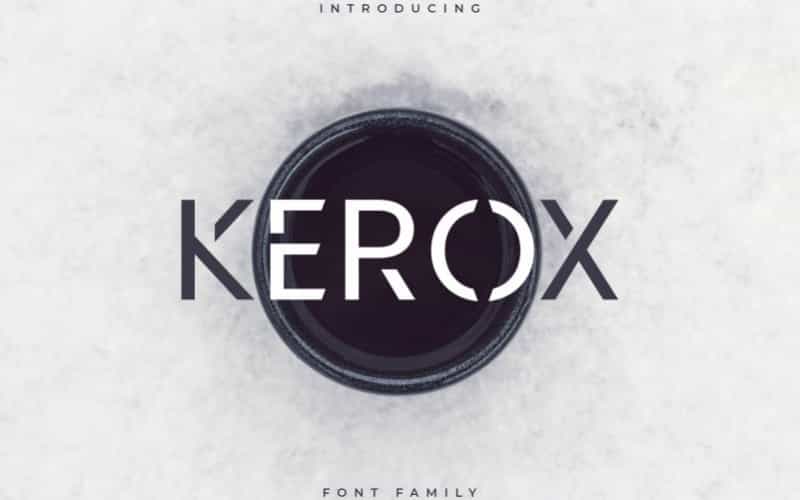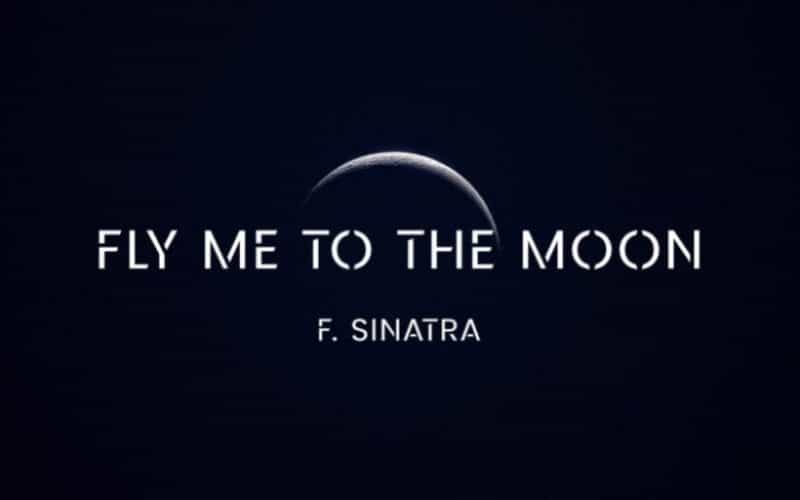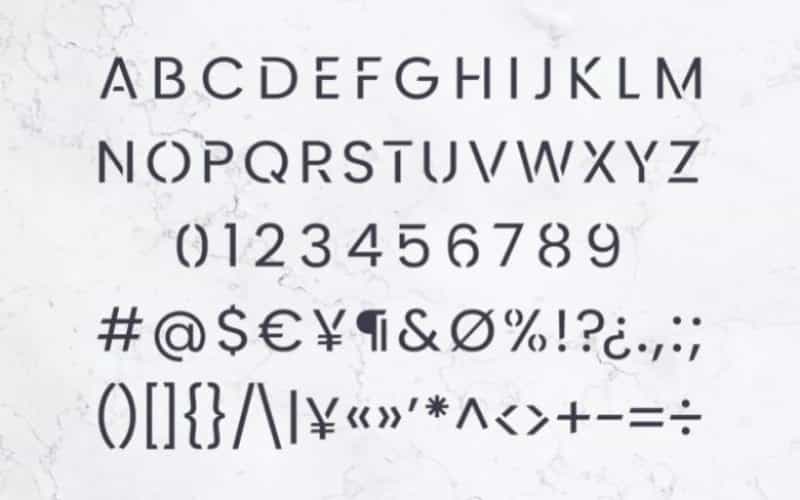
Kerox is a sleek sans serif font family crafted for creating timeless branding. It’s versatile. Works well across mediums such as branding elements, logos, magazines, videos, packaging, website headers, apparel designs and more.